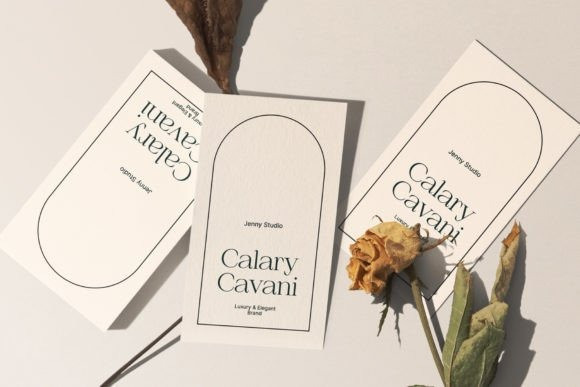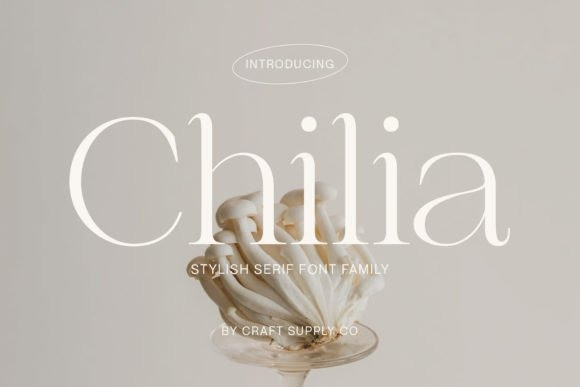
Chilia Font
Chilia Font is a stylish serif font where contemporary upper serifs meet a feminine allure, making it ideal for beauty and display purposes. With its unique blend of modern and elegant features, Chilia adds a touch of sophistication with eye-catching presence that perfect for captivating displays that demand attention.